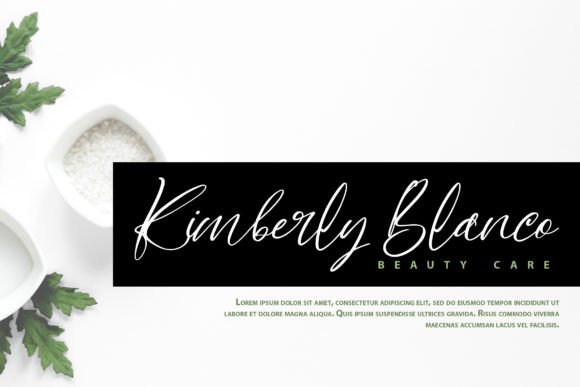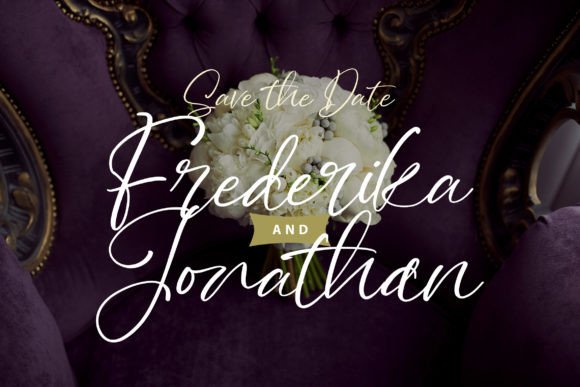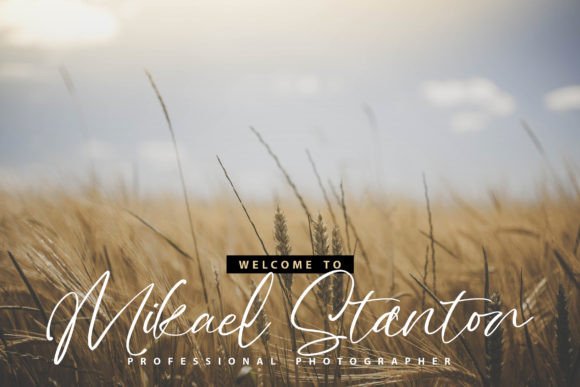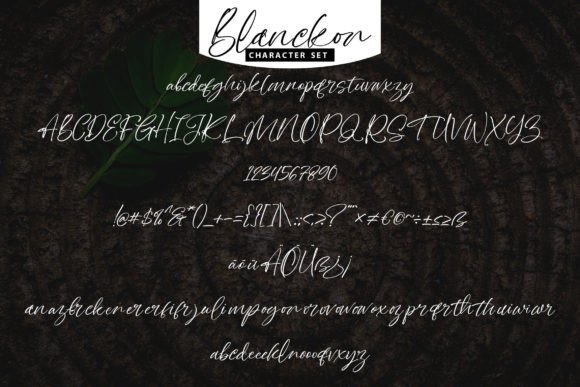
Introducing Blanckon Font: The Elegant and Charming Handwritten Font
Are you a designer or crafter looking for a font that exudes elegance and charm? Look no further than Blanckon Font! This beautiful handwritten font is perfect for adding a touch of sophistication to any design project. In this article, we’ll take a closer look at Blanckon Font and explore its features, uses, and benefits.
A Font that Feels Equally Charming and Elegant
Blanckon Font is a stunning handwritten font that feels equally charming and elegant. Its unique and flowing script makes it perfect for designs that require a personal touch. Whether you’re creating wedding invitations, thank you cards, quotes, or greeting cards, Blanckon Font is sure to impress. Its elegant and refined appearance makes it an excellent choice for logos, business cards, and other branding materials.
Wedding designers and event planners, rejoice! Blanckon Font is an excellent choice for creating beautiful wedding invitations, save-the-date cards, and other event materials. Its elegant and sophisticated appearance makes it perfect for formal events, while its charming and whimsical feel makes it suitable for more casual gatherings. With Blanckon Font, you can create stunning designs that will leave a lasting impression on your guests.
One of the best features of Blanckon Font is that it’s PUA encoded. This means that you can access all of the glyphs and swashes with ease, giving you complete creative control over your designs. With PUA encoding, you can easily insert special characters, ligatures, and swashes into your text, making it easy to create beautiful and unique designs.
Blanckon Font is incredibly versatile and can be used for a wide range of design projects. Here are just a few ideas to get you started:
- Wedding invitations and event materials
- Thank you cards and greeting cards
- Quotes and typography art
- Business cards and stationery
Why Choose Blanckon Font?
So, why choose Blanckon Font for your design projects? Here are just a few reasons:
- Elegant and charming appearance
- Versatile and can be used for a wide range of design projects
- Perfect for wedding and event designs
In conclusion, Blanckon Font is a beautiful and elegant handwritten font that’s perfect for designers and crafters looking to add a touch of sophistication to their designs. With its charming and refined appearance, PUA encoding, and endless design possibilities, Blanckon Font is an excellent choice for any design project. Whether you’re creating wedding invitations, logos, or social media graphics, Blanckon Font is sure to impress. So why wait? Download Blanckon Font today and start creating stunning designs that will leave a lasting impression!